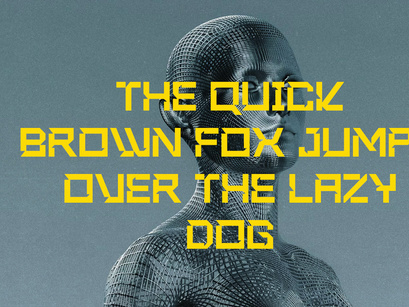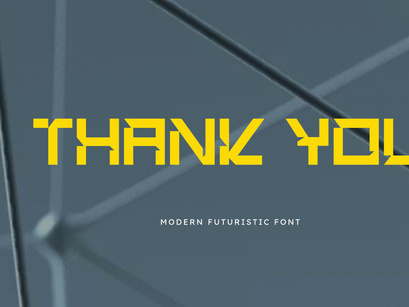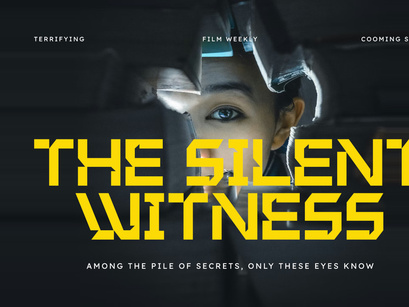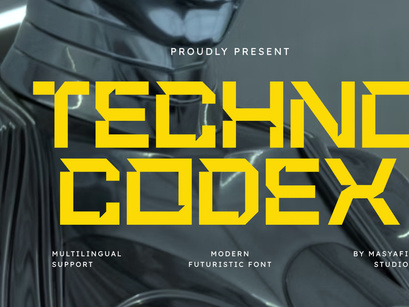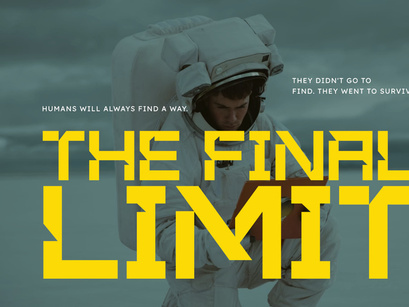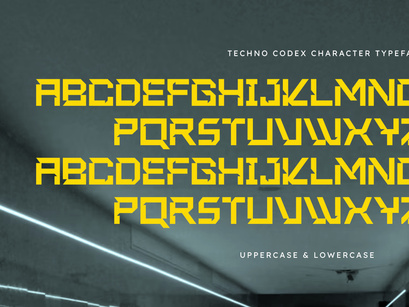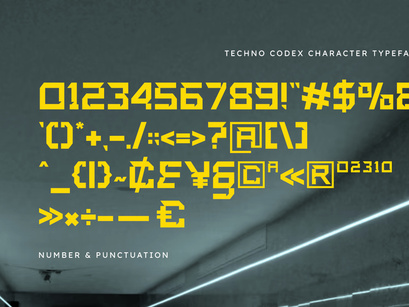
Techno Codex - Modern Futuristic Display Font
Techno Codex
Techno Codex is a bold, futuristic display font designed to command attention in the digital realm. Inspired by mechanical structures and advanced robotics, this typeface features sharp, angular cuts and a heavy weight that exudes power and innovation.
It is the ultimate choice for eSports branding, tech startup logos, gaming interfaces, and high-performance automotive designs. With its high-impact silhouette, Techno Codex ensures your project stands at the forefront of modern design.
• Bold & Aggressive Futuristic Style.
• Unique geometric "stencil-like" terminals.
• Optimized for headlines, logos, and large displays.
• Multilingual support for international tech brands.